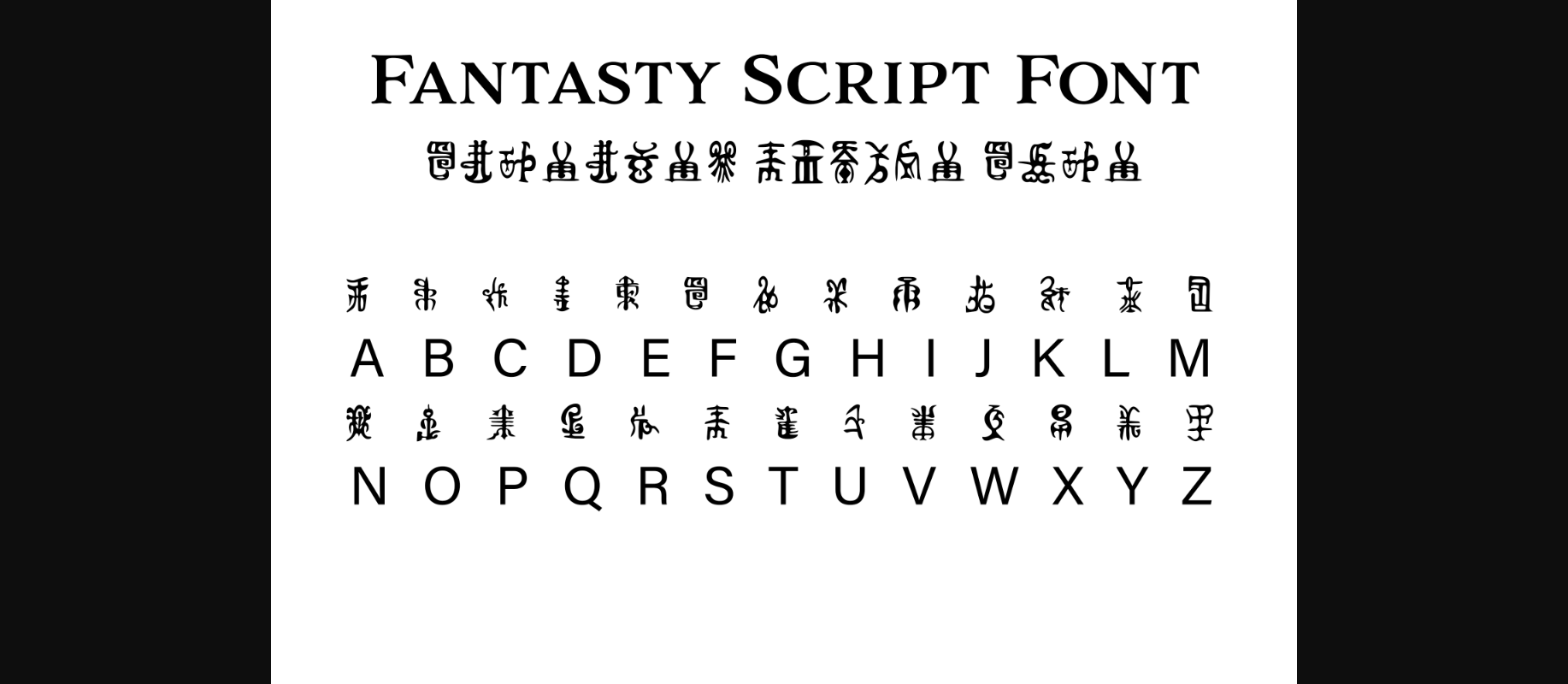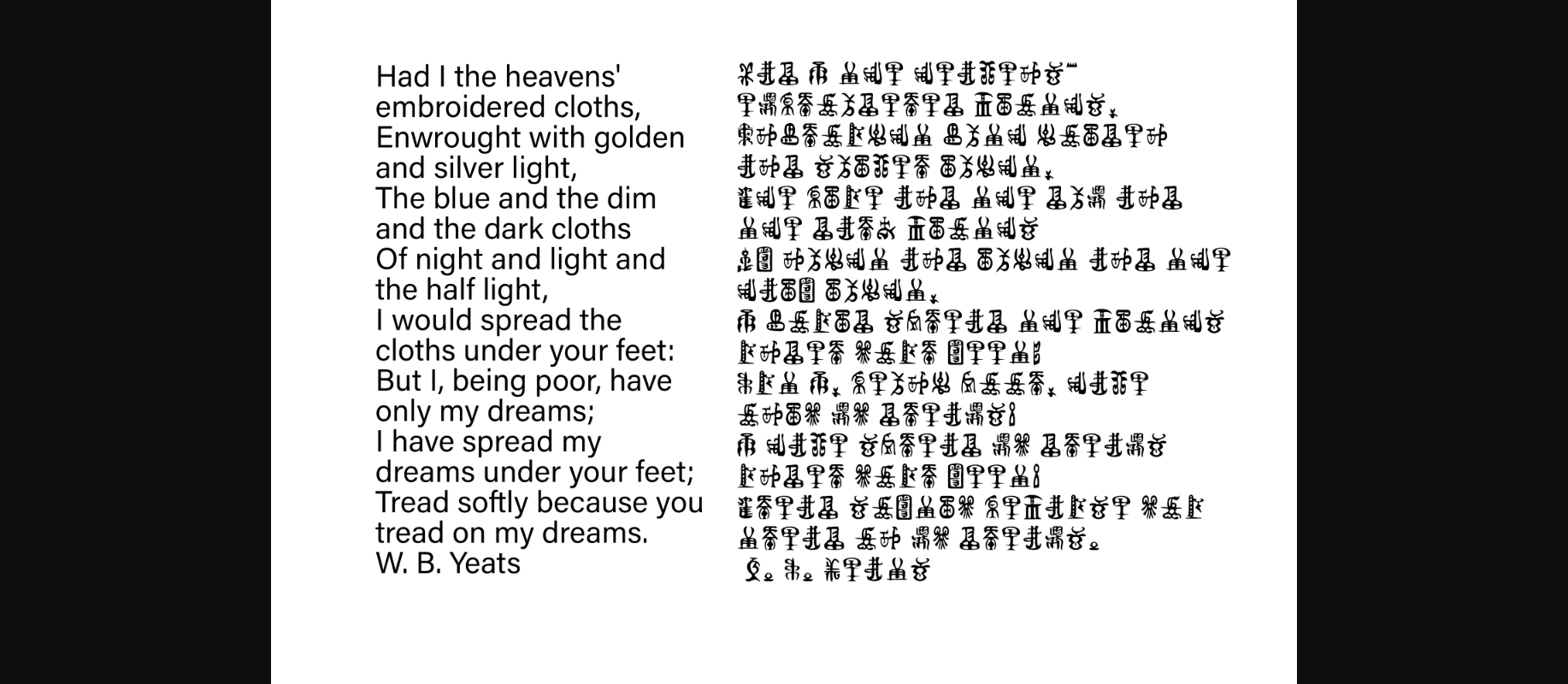
About Fantasy Script 13 Font
Fantasy is perfect for your next Dungeons and Dragons campaign, fantasy LARP adventure, novel, or whatever else you’re working on! This font includes the standard English alphabet and basic punctuation.